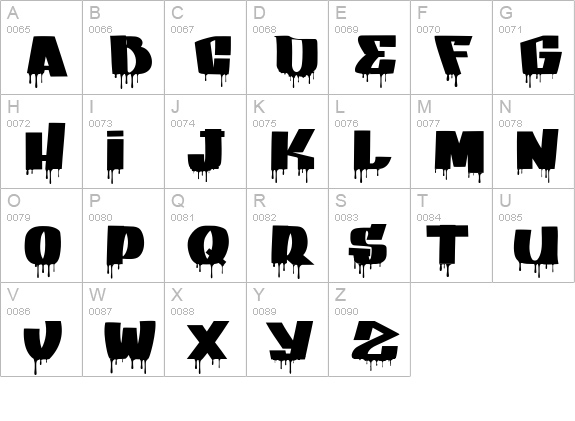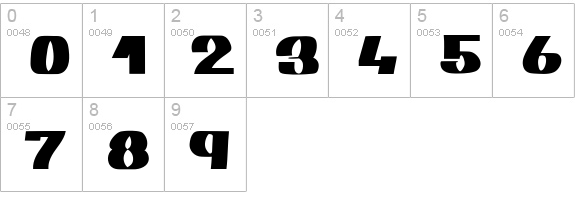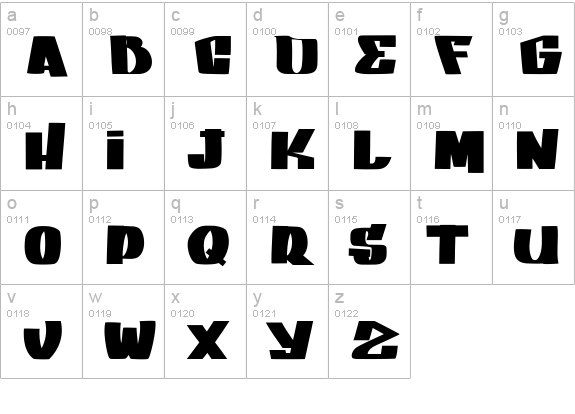
Introducing Gang Bang Crime font, a bold and daring typeface that exudes an edgy and rebellious vibe. This font is perfect for projects that require a touch of urban grit, making it ideal for designs related to crime, street art, and underground culture. With its sharp and angular letterforms, Gang Bang Crime font commands attention and adds a powerful punch to any design. Each character is meticulously crafted to showcase the font's unique personality, allowing it to stand out from the crowd and leave a lasting impression. But what sets Gang Bang Crime font apart is its availability for free download at FontsMarket.com. Yes, you read that right – this captivating font can be yours without spending a dime. FontsMarket.com offers a wide range of fonts, and Gang Bang Crime font is just one of the many amazing options available for free. Download it now and let your creativity run wild! Whether you're designing a poster, creating a logo, or crafting a website, Gang Bang Crime font will elevate your work to new heights. Its versatility and distinctiveness make it a valuable addition to any designer's toolkit. So don't miss out on this exceptional opportunity to enhance your creative endeavors with a font that truly stands out. Download Gang Bang Crime font for free at FontsMarket.com and unleash its raw power in your designs today. Embrace the urban energy, express your unique style, and make a bold statement with this captivating font.